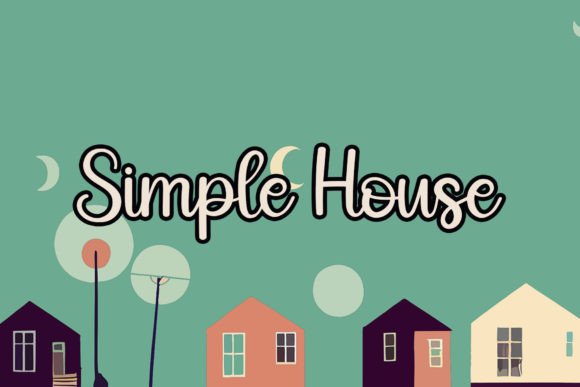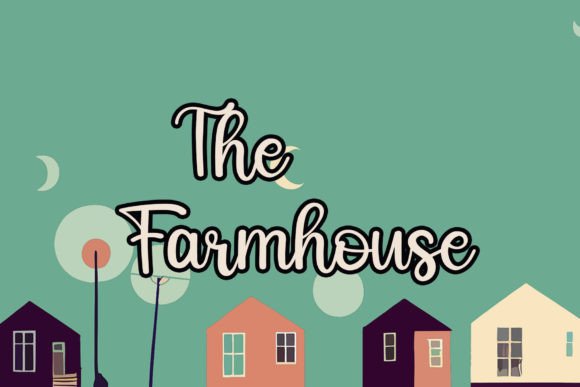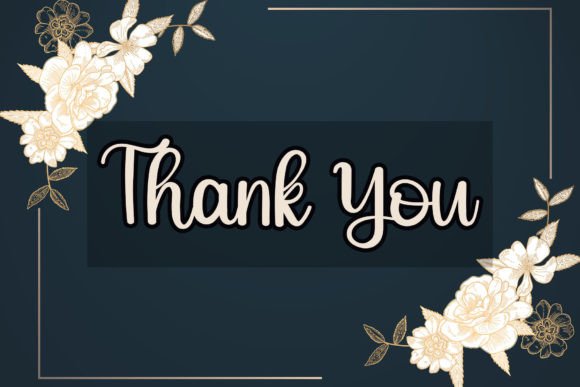
Sweety Font
Sweety Handwritten Font – Trendy and Elegant Typeface
The Sweety Handwritten Font is a stylish script typeface designed to bring elegance and sophistication to your projects. Inspired by classic calligraphy, it combines timeless beauty with a modern touch. Whether you are creating invitations, posters, or digital designs, this font adds a refined and graceful look.
A Handwritten Script with Calligraphic Influence
The Sweety Handwritten Font blends calligraphy-inspired strokes with a polished handwritten style. Its flowing curves provide a contemporary atmosphere, while its balanced design ensures readability. Because of this, it adapts beautifully to personal and professional projects alike.
Perfect for Invitations and Branding
One of the most popular uses of the Sweety HandwrittenFont is in wedding invitations, greeting cards, and branding. Its elegant strokes add a luxurious touch to personal stationery. At the same time, it enhances logos, product packaging, and business cards with a professional handwritten look.
The Sweety Handwritten Font is versatile enough for a variety of design settings. From social media graphics and magazine layouts to posters and product labels, it adds a stylish handwritten charm. Its adaptability ensures it works equally well for both print and digital applications.
Why Designers Love Sweety Font
Designers appreciate the Sweety HandwrittenFont for its balance of elegance and usability. Its calligraphic influence provides decorative beauty, while its clarity ensures practical use. This makes it a reliable choice for creatives who need both sophistication and functionality.